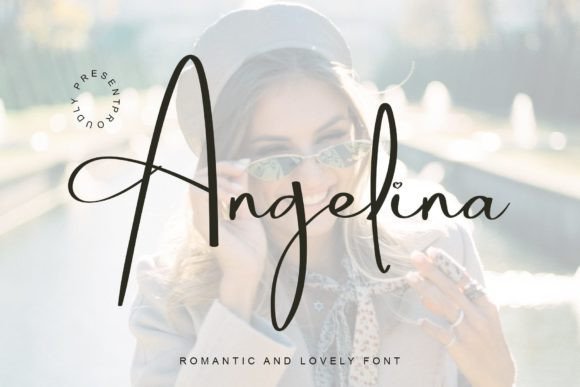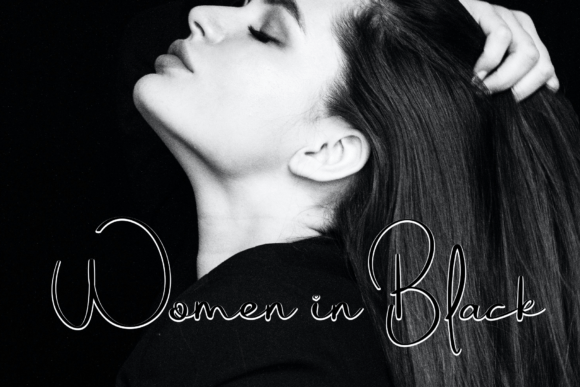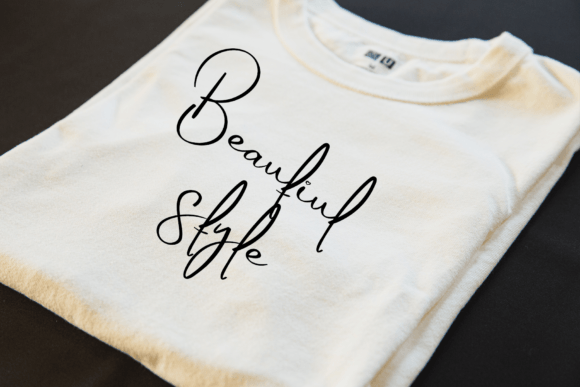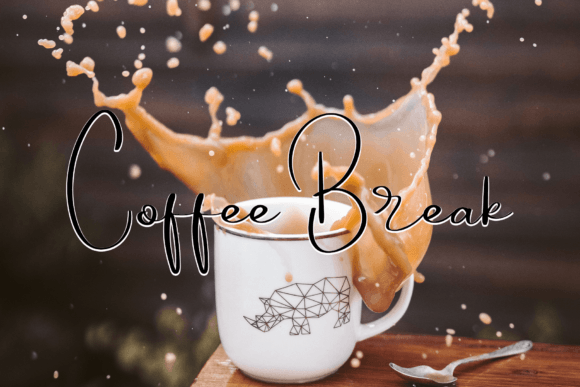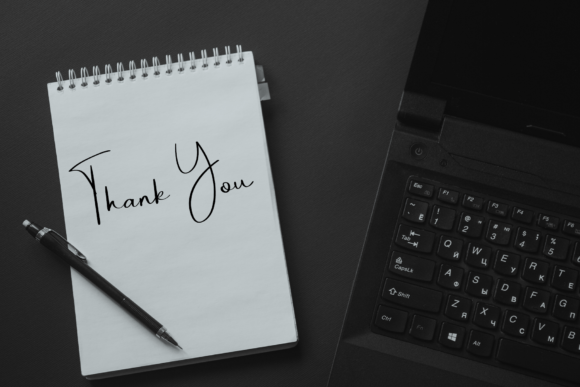
Angelina Font
About Angelina Font
Angelina is not just a font; it’s a charming handwritten script that brings a touch of romance to every creative project. Let’s explore the features that make Angelina versatile and perfect for a wide range of applications.
At its core, Angelina embodies charm. The handwritten script exudes a warmth and personality that instantly captivates. The characters dance along the baseline with a delightful flair, creating a sense of playfulness that is perfect for a variety of design projects.
Versatility is a key strength of Angelina. From greeting cards to headlines, this font seamlessly adapts to different contexts, making it suitable for an array of creative applications. Whether you’re crafting heartfelt messages or designing attention-grabbing headlines, Angelina adds a romantic and charming touch.
The wide spectrum of applications for Angelina includes greeting cards, where its intimate and handwritten style can convey heartfelt messages with authenticity. Meanwhile, its appeal extends to headlines, where it can infuse a romantic feel into titles, banners, or any text that demands attention.
The beauty of Angelina lies in its ability to evoke a romantic atmosphere. This makes it a perfect choice for projects that require a touch of love and tenderness. From personal projects like greeting cards to professional endeavors like branding and headlines, Angelina elevates the emotional resonance of your designs.
In conclusion, Angelina is more than just a charming handwritten font; it’s a versatile tool that adds a romantic feel to a spectrum of creative projects. Whether you’re expressing emotions through greeting cards or making headlines that capture attention, Angelina brings a delightful and charming essence to your designs.